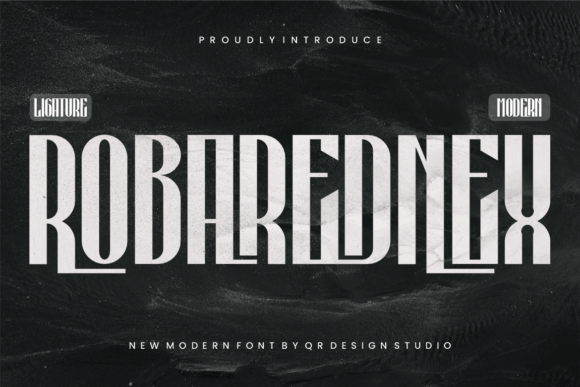
Immerse your gaming videos with the captivating boldness of Robarednex, a display font that exudes energy and commands attention. Stir emotions and create an adrenaline-fueled viewing experience that keeps your audience hooked. Robarednex is meticulously crafted to project the essence of gaming, ensuring your content shines with unrivaled charisma.
Unleash the power of Robarednex and watch your gaming videos transcend mediocrity. Its bold strokes and sharp angles evoke a sense of urgency and determination, perfectly complementing the fast-paced action of gaming. Engage your viewers with every frame, leaving them breathless and yearning for more.
Transport your audience to the heart of the gaming universe with Robarednex, where every letter becomes a pixel in the grand tapestry of your digital world. Its striking presence amplifies the intensity of your gameplay, making every move and every victory more epic. Ignite the competitive spirit and leave your mark on the gaming landscape.
Robarednex is not just a font; it's a weapon in your arsenal, an instrument that elevates your gaming videos to new heights of excellence. With its unwavering boldness and authentic display style, Robarednex proclaims your passion for gaming to the world. Download Robarednex today and let your videos radiate with confidence, originality, and unmatched gaming prowess.